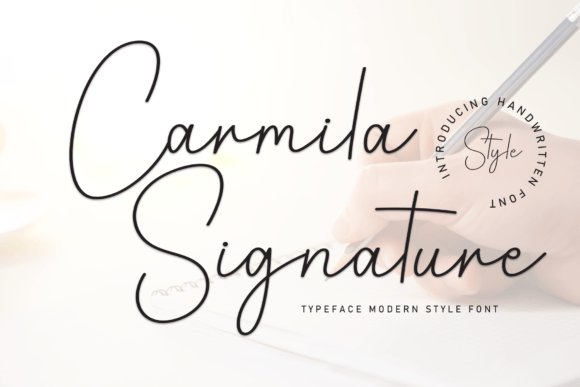
Have you ever been brainstorming a design project and suddenly, the perfect idea strikes you? Maybe it’s a bold color scheme or a unique typography choice. For me, it was the moment I stumbled upon the Carmila Signature Font. I was immediately captivated by its elegant and smooth feel, reminiscent of natural handwriting.
The Carmila Signature Font is a stylish handwritten font that’s perfect for adding a personal touch to invitations, logos, and social media posts. Its flowing letters create a classy and modern feel that’s sure to impress. As a designer, I can attest to the value of this font in elevating our designs and making them stand out.
With the Carmila Signature Font, designers can add a touch of sophistication and personality to their work. Whether you’re creating a wedding invitation or a social media campaign, this font is sure to make your designs shine.
Carmilla Signature Font Key Features
- Font Family: This font comes in a single family with multiple weights, ranging from Thin to Bold.
- Character Count: With over 250 characters, this font offers a wide range of glyphs, including Latin, Cyrillic, and Greek alphabets.
- Unique Characteristics: Features a distinctive, elegant script style with flowing connections between letters, perfect for creating a sophisticated and luxurious feel.
Carmila Signature Font Review
I recently had the chance to work with the Carmila Signature Font, and I must say it’s an interesting mix of styles. ✨ One thing that stands out is its unique blend of elegance and modernity, making it perfect for a wide range of design projects.
- ✨ Elegant script style that adds a touch of sophistication to any design
- ✨ Highly customizable, with a wide range of options for tweaking the look and feel
- ✨ Excellent for use in logos, titles, and other high-impact design elements
- ⚠️ May not be the best choice for body text, as it can be a bit overwhelming to read in large quantities
- ⚠️ Limited language support, which may be a concern for designers working with non-English clients
Overall, I think the Carmila Signature Font is a solid choice for designers looking to add a touch of elegance and sophistication to their work. While it may have some limitations, its unique style and high level of customization make it a valuable addition to any design toolbox.
Getting the Most Out of Carmila Signature Font
For the best results, use Carmila Signature Font in combination with bold or italic styles to add emphasis. Experiment with different font sizes and colors to create visual interest. Use the font in headings and titles to create a consistent look and feel.
Carmila Signature Font is ideal for:
– Branding and logo design
– Creative typography projects
– Digital marketing materials (e.g. social media posts, email newsletters)
– Print materials (e.g. business cards, brochures)
– Web design and development projects